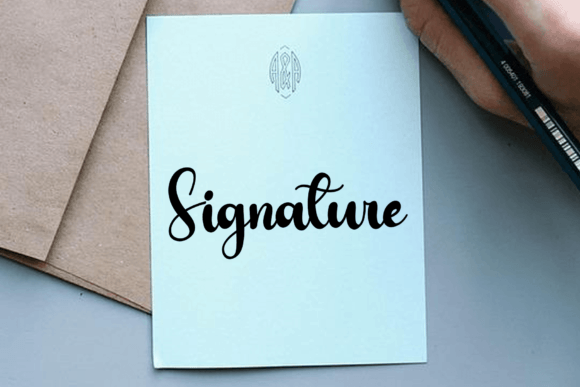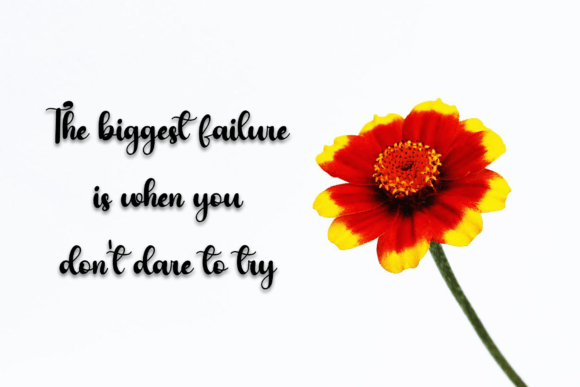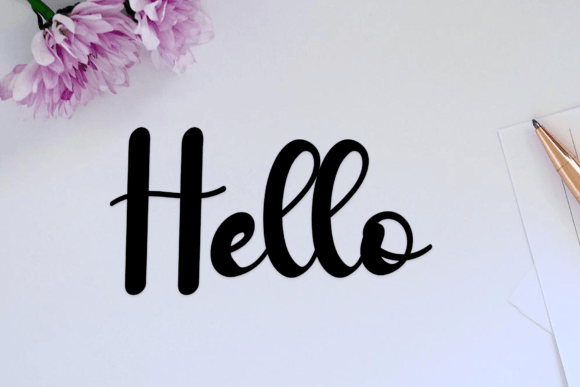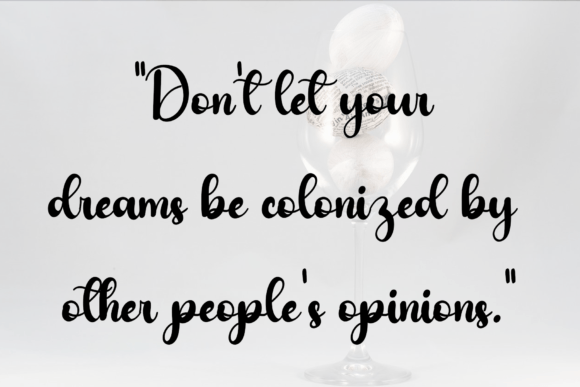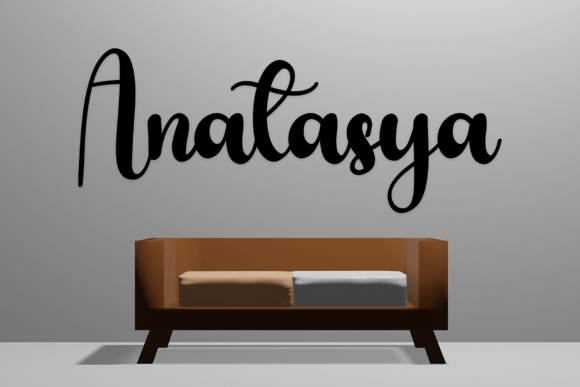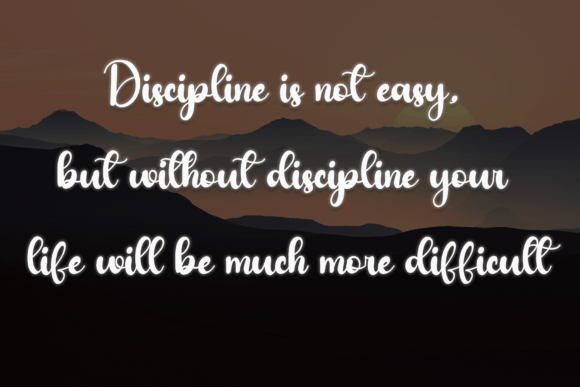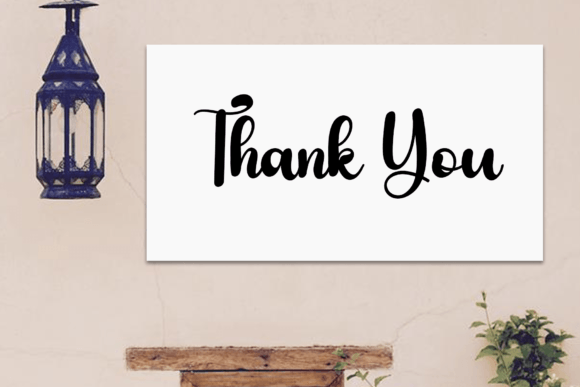
Vanila Font
About Vanila Font
“Vanila” is a delicately crafted handwritten font that adds a touch of elegance and sophistication to your designs. With its graceful strokes and stylish curves, this font is perfect for creating cool and unique projects that leave a lasting impression. Whether you’re working on titles, invitations, letters, or any other creative endeavor, “Vanila” enhances the overall aesthetic and makes your designs truly outstanding.
The refined and timeless appearance of “Vanila” makes it a versatile choice for various design applications. Its clean and well-defined characters contribute to the font’s readability, ensuring that your message is conveyed clearly and effectively. Whether used for formal invitations or trendy social media posts, “Vanila” adapts seamlessly to different contexts, showcasing its adaptability and charm.
The font’s attention to detail and carefully crafted design elements set it apart, making it an excellent choice for projects where elegance and creativity are paramount. The subtle variations in the strokes give “Vanila” a natural and organic feel, making it appear as if it were handwritten with care and precision.
By incorporating “Vanila” into your designs, you can elevate them to a new level of sophistication. The font’s delicate and refined aesthetic adds a touch of class, making your projects visually appealing and memorable. Whether you’re creating wedding invitations, branding materials, or stylish social media graphics, “Vanila” brings a sense of elegance and uniqueness to your work.
Allow “Vanila” to infuse your designs with its distinctive charm and enhance their overall impact. With this font, your creations will stand out, capturing the attention of your audience and leaving a lasting impression. Embrace the sophistication of “Vanila” and transform your designs into visually stunning masterpieces.